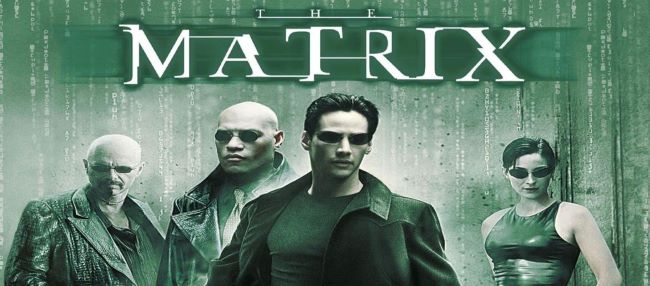
The Matrix Font
The Matrix Font is one of the most iconic and visually striking typefaces ever seen in cinema. Introduced in the Wachowskis’ 1999 sci-fi classic The Matrix, the font instantly captures the film’s digital, code-filled world and its blend of mystery, technology, and rebellion. Its sharp, angular design and slightly distorted form reflect the illusion of reality and the film’s groundbreaking cyberpunk aesthetic.
Much like the movie transformed visual storytelling, the Matrix Font has become a hallmark of futuristic design. It’s often used in digital art, posters, and tech-inspired projects to evoke the same sense of innovation and intrigue. Although the studio never released an official typeface, the version designed by Audun Larsson Kleveland closely replicates the film’s lettering.
The Matrix Font’s enduring popularity proves how powerful typography can be in shaping a film’s legacy and visual identity.